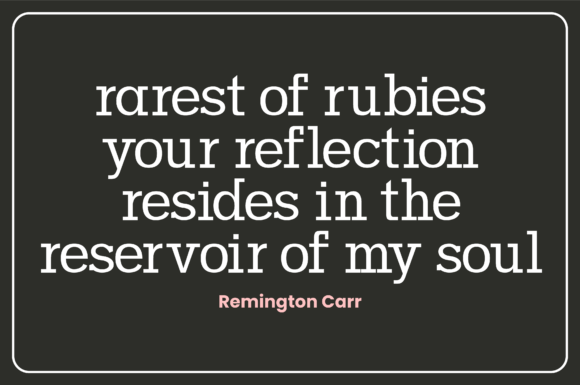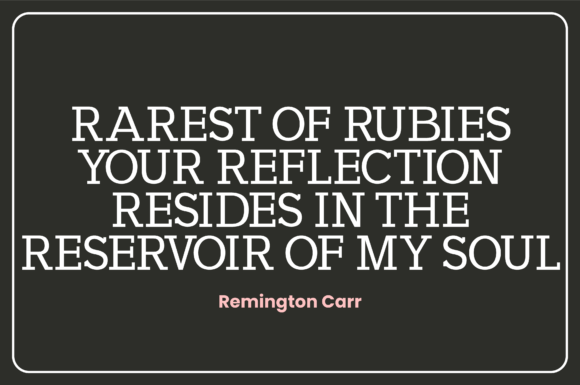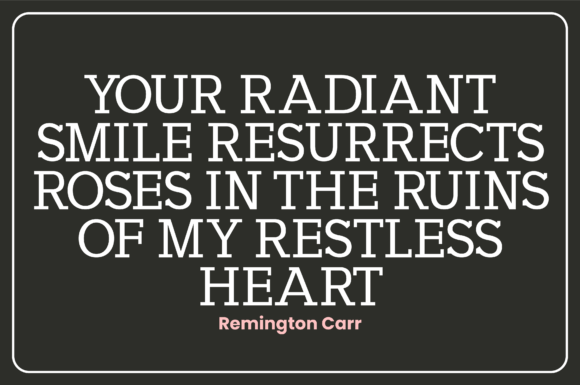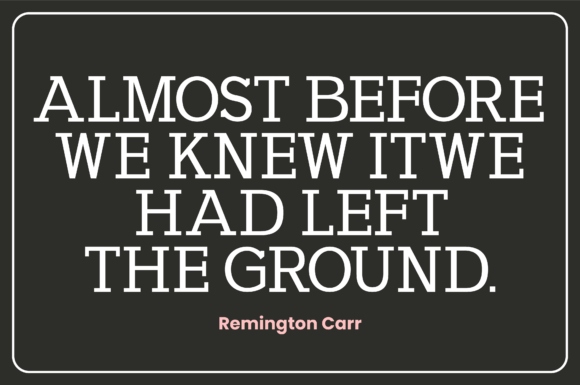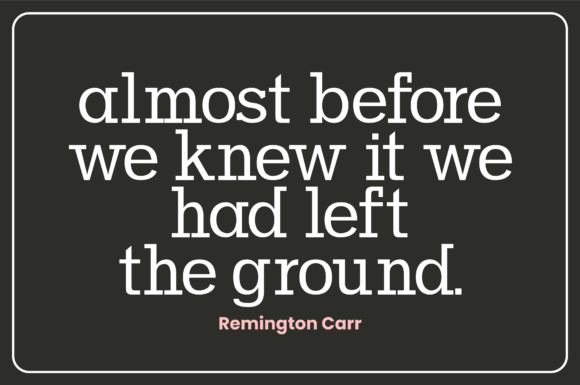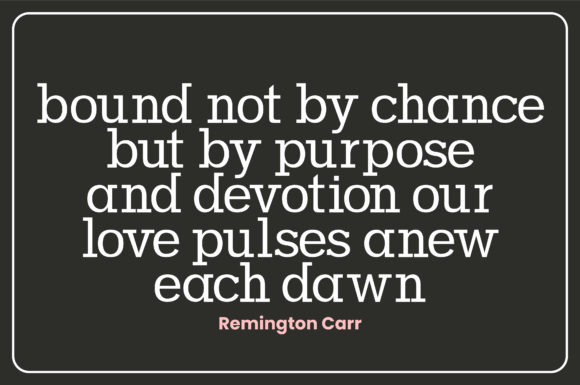
Discover the Elegance of Anduba Font
Have you ever been in the middle of a design project, and suddenly, you just can’t seem to find the right font? I recall a particularly frustrating experience while working on a luxury perfume branding project. My client wanted a font that exuded elegance, sophistication, and a touch of chic refinement. That’s when I stumbled upon Anduba Font – a game-changer in the world of typography.
The Birth of Anduba
Anduba is a unique slab serif font trio, consisting of Regular, Italic, and Retalic. Its creator, inspired by the beauty of high-end fashion and luxury brands, aimed to craft a font that would effortlessly infuse any design with an aura of style and sophistication. Anduba’s design story is one of passion and dedication to creating a typeface that would meet the needs of designers, crafters, and creative hobbyists alike.
My Honest Review of Anduba
I’ve had the pleasure of working with Anduba on several projects, and here’s my honest review:
- ✨ Elegant and sophisticated design
- ✅ Versatile and adaptable to various design applications
- 🔥 Perfect for luxury brands, fashion designs, and high-end products
- 👍 Excellent readability, even at small font sizes
- 🤔 Limited availability of certain OpenType features in some software
- ⚠️ May not be the best fit for very casual or playful designs
Q: What makes Anduba unique?
A: Anduba’s unique blend of elegance, sophistication, and versatility makes it an excellent choice for luxury brands and high-end designs.
Q: Is Anduba suitable for digital and print designs?
A: Absolutely! Anduba’s clear and legible design makes it perfect for both digital and print applications.
Conclusion
Anduba Font is a game-changer for designers, crafters, and creative hobbyists looking to elevate their designs with elegance, sophistication, and style. Its versatility, readability, and luxurious feel make it an excellent choice for a wide range of applications. With Anduba, you’ll be able to create stunning designs that exude refinement and poise.